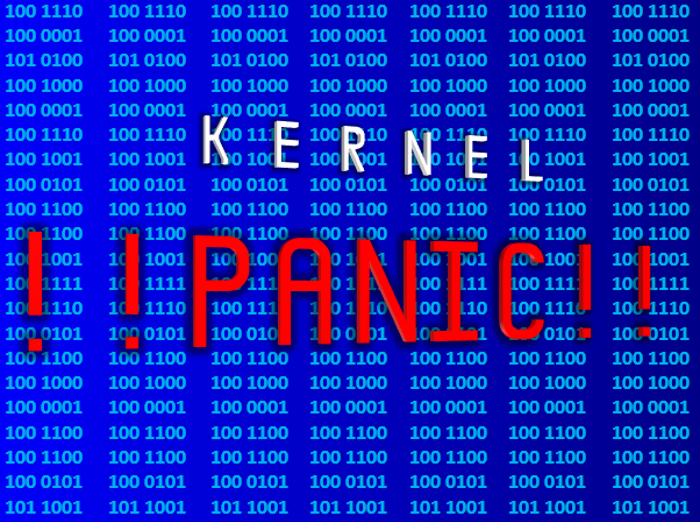
Kernel Panic NBP Font
Inspired by vectorised bitmap fonts, this monospaced design is functional and legible at any size.
almost 13 years ago@WolfLambert lmao Yes. I'm trying to do a font called "Blue Screen" so I can have all the kill screens in the NBP collection 😃
Love it Nate!!